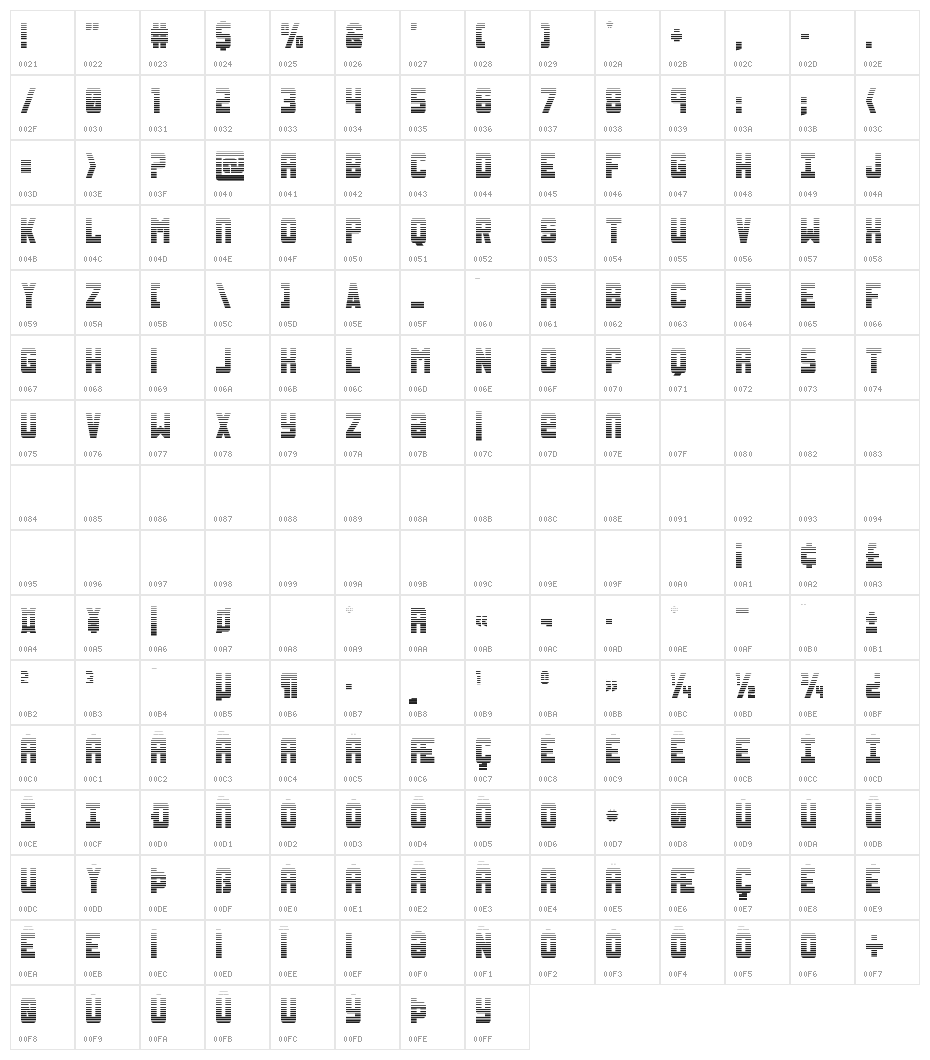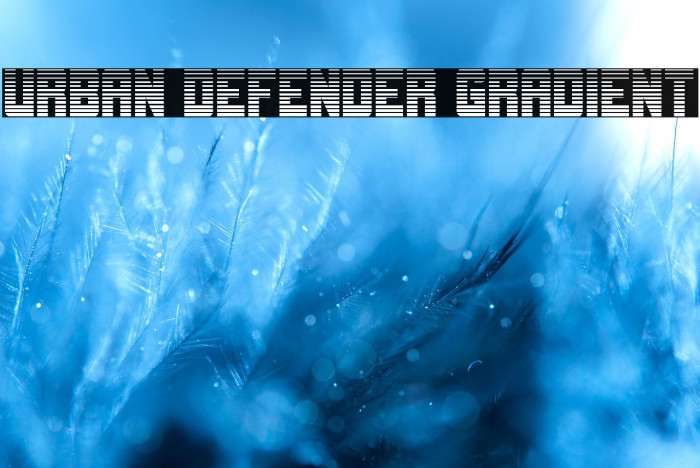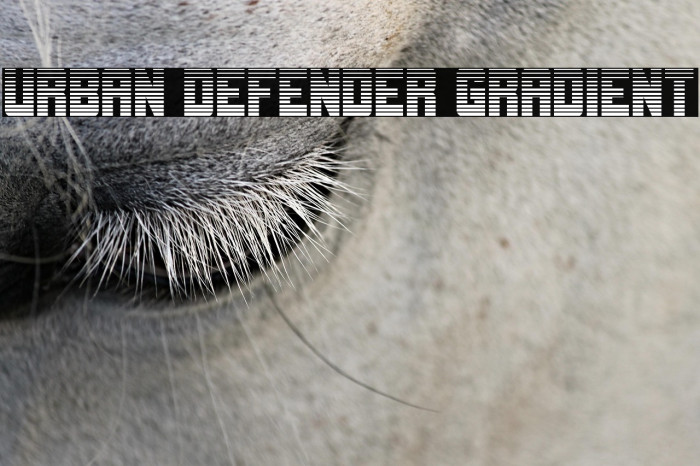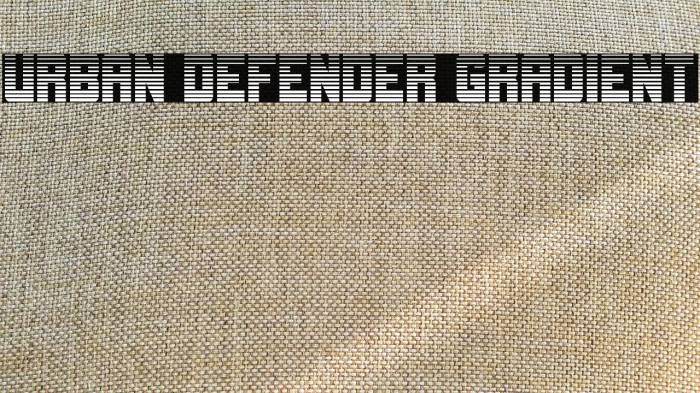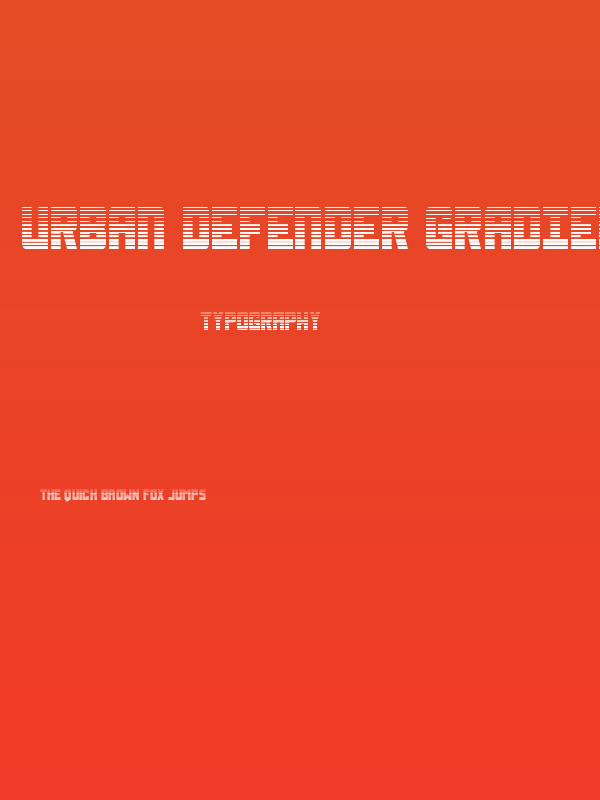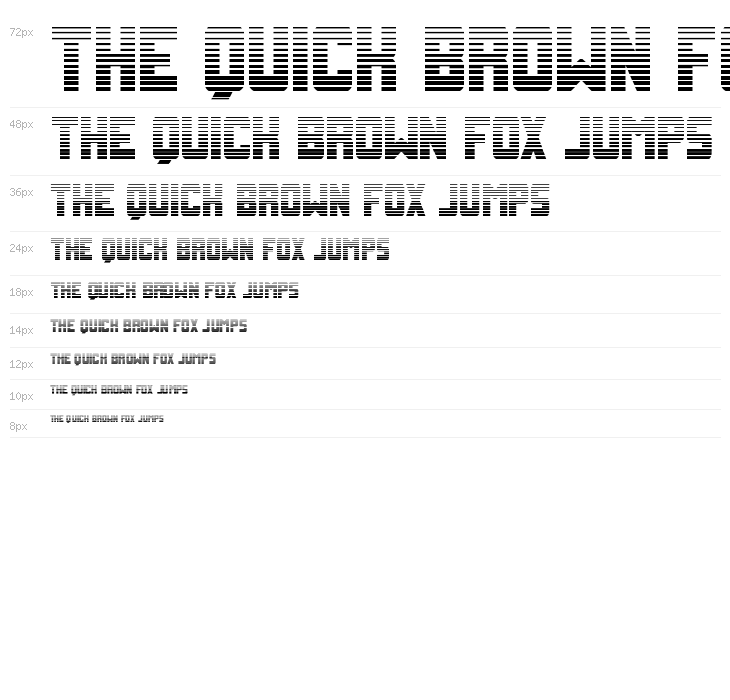
Urban Defender Gradient Font
Urban Defender Gradient Description
This font features a bold, futuristic design with a distinct gradient effect that gives each character a layered, three-dimensional appearance. The uppercase and lowercase letters, as well as numbers and special characters, are constructed with horizontal lines that create a sense of movement and depth. The style is reminiscent of digital or sci-fi themes, making it ideal for projects that require a modern and edgy look. The characters are evenly spaced, ensuring readability while maintaining a unique visual impact. This font stands out with its high contrast and bold strokes, making it perfect for attention-grabbing headlines or logos.
Proposed ProjectsPerfect for sci-fi themed posters, video game titles, tech company logos, and modern digital media.